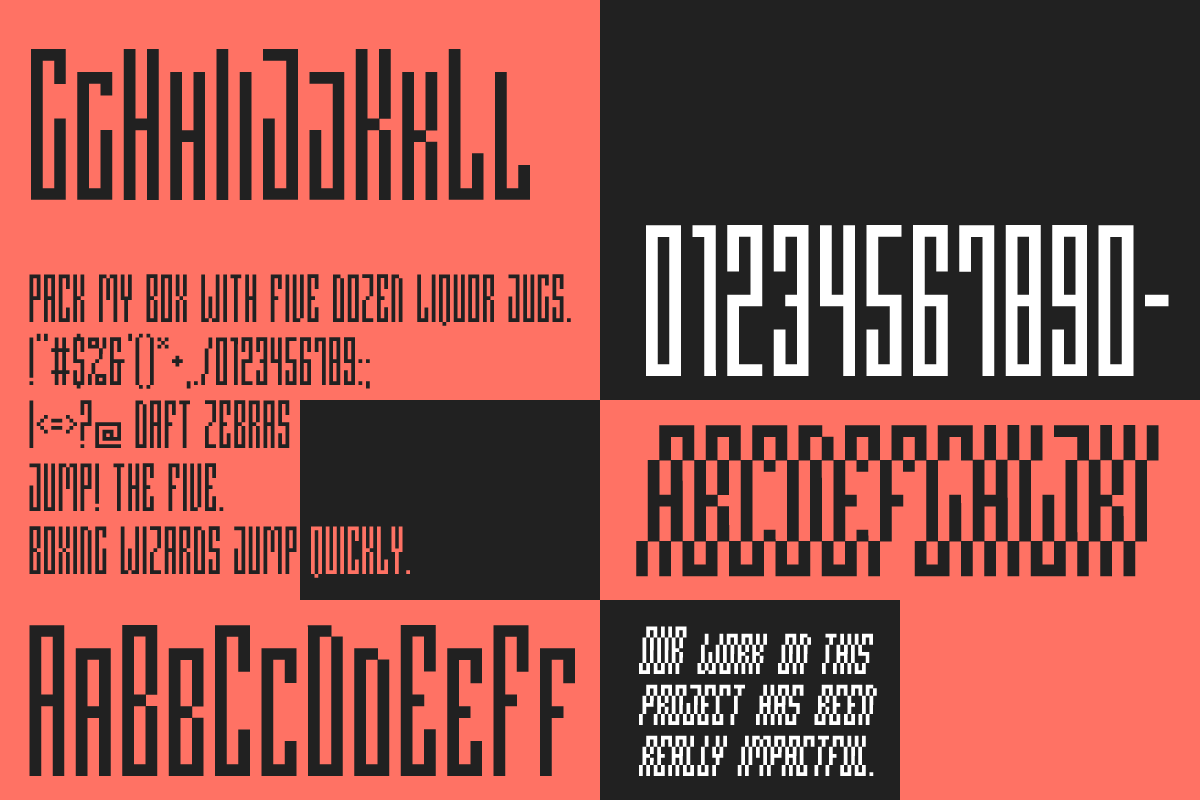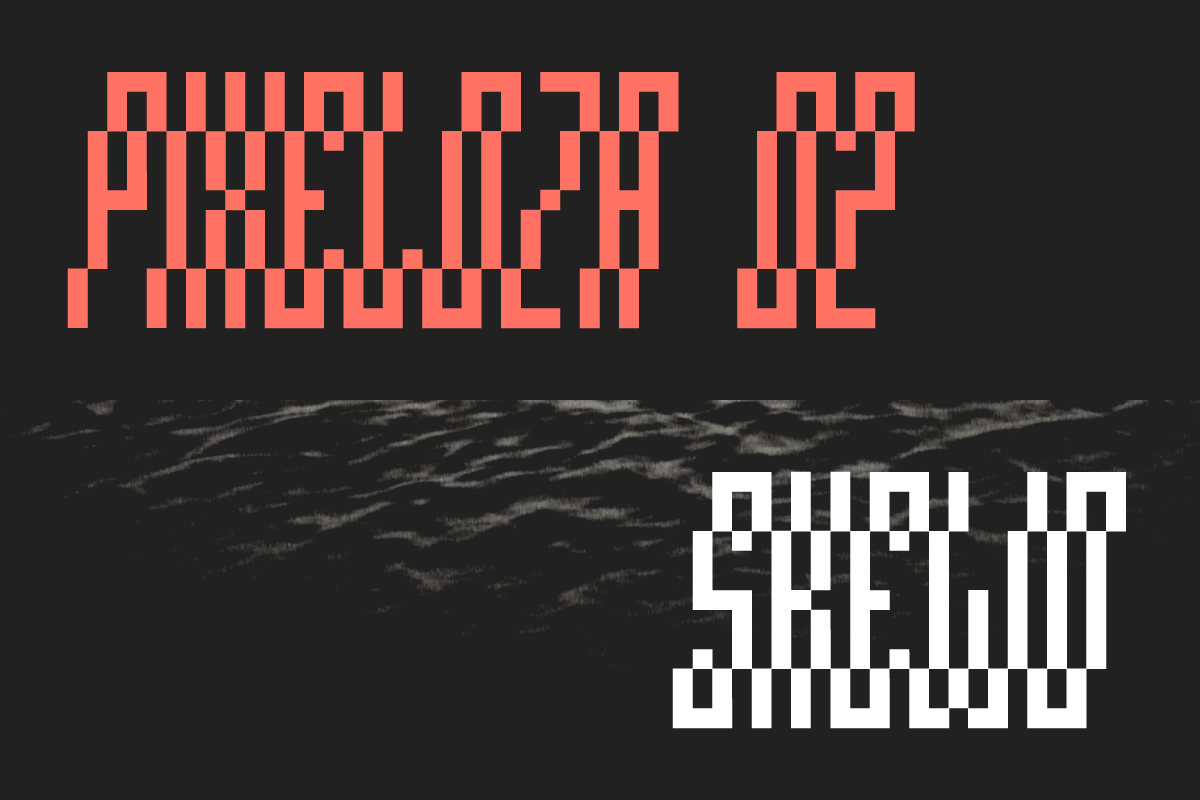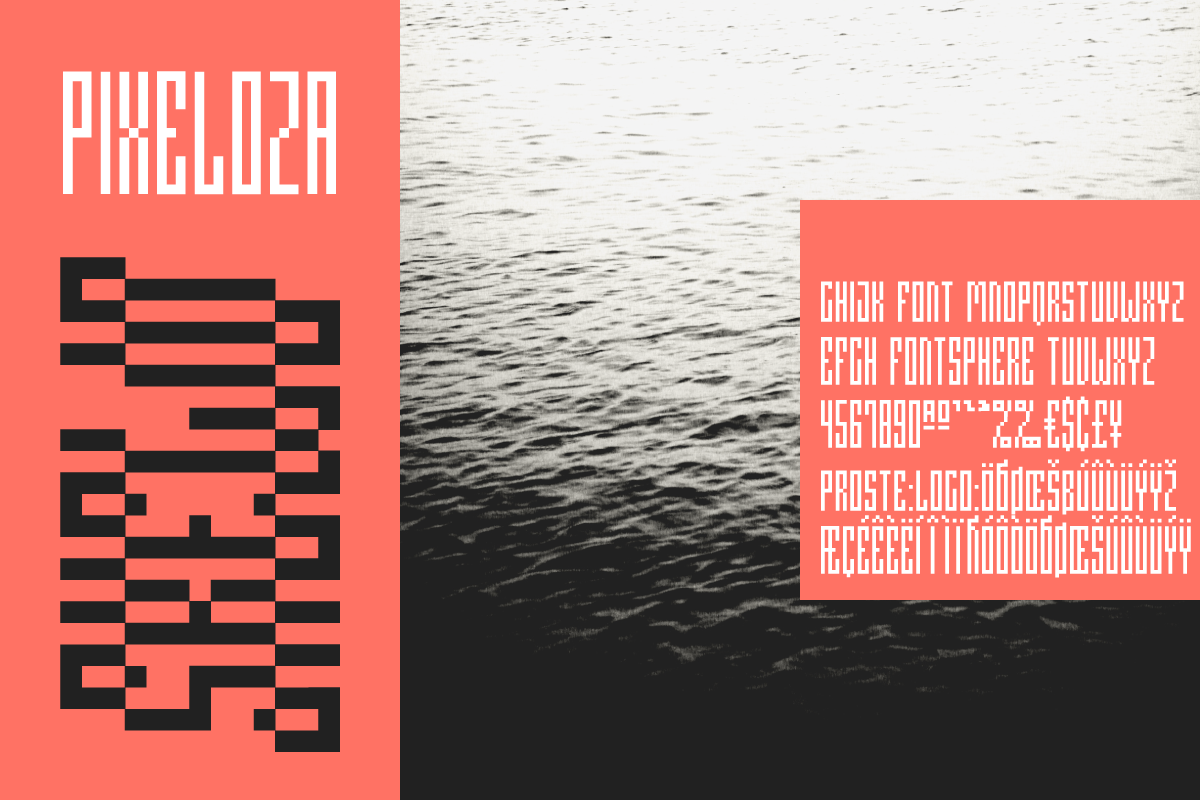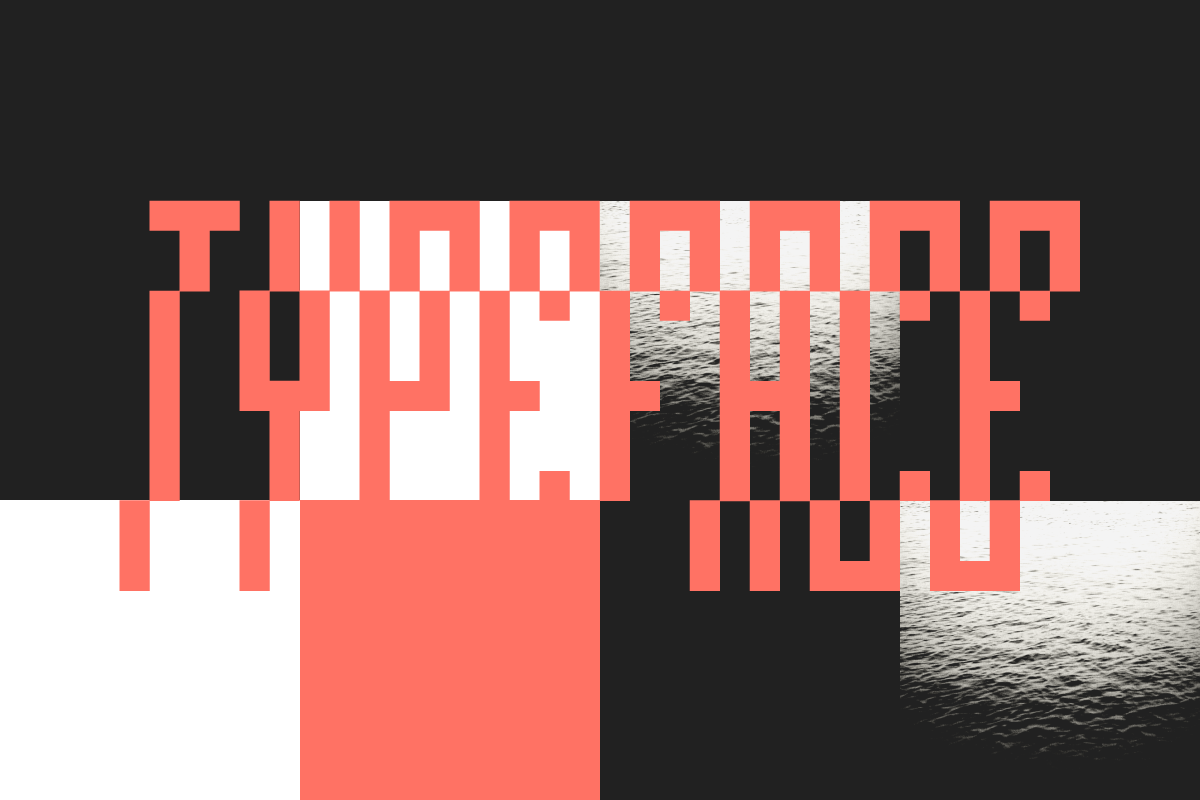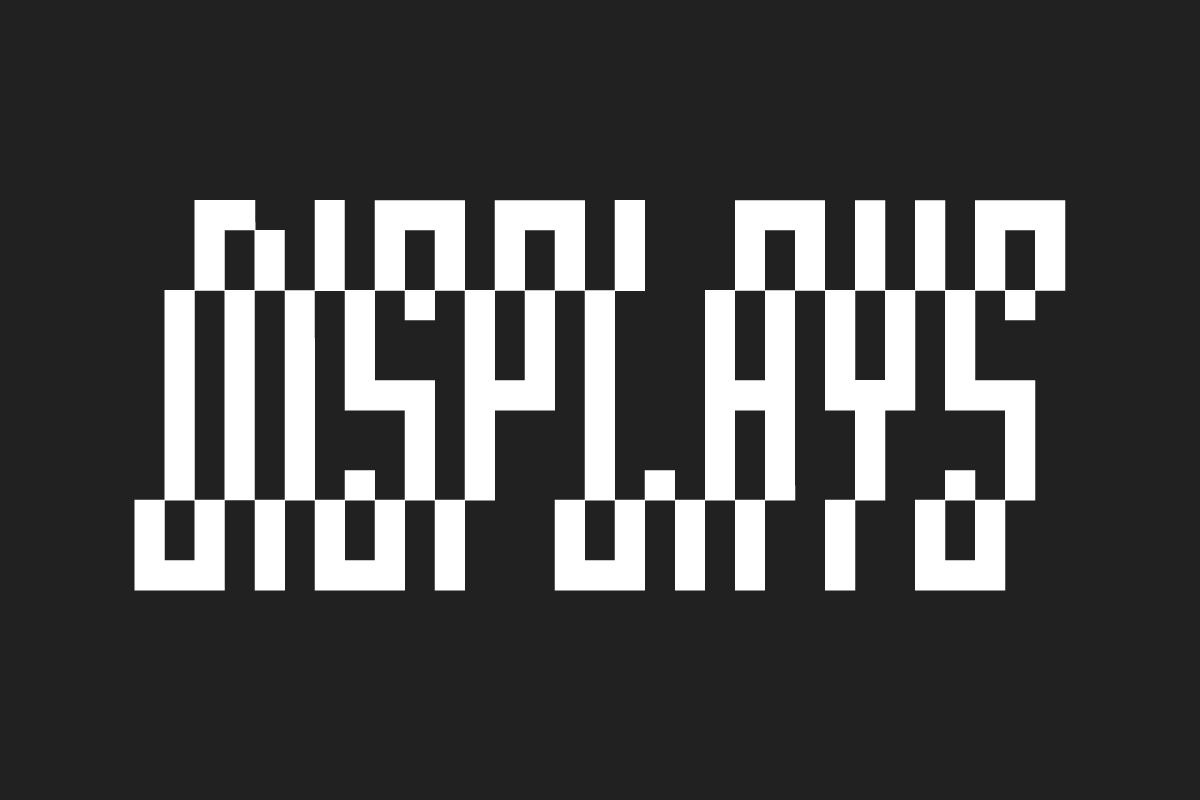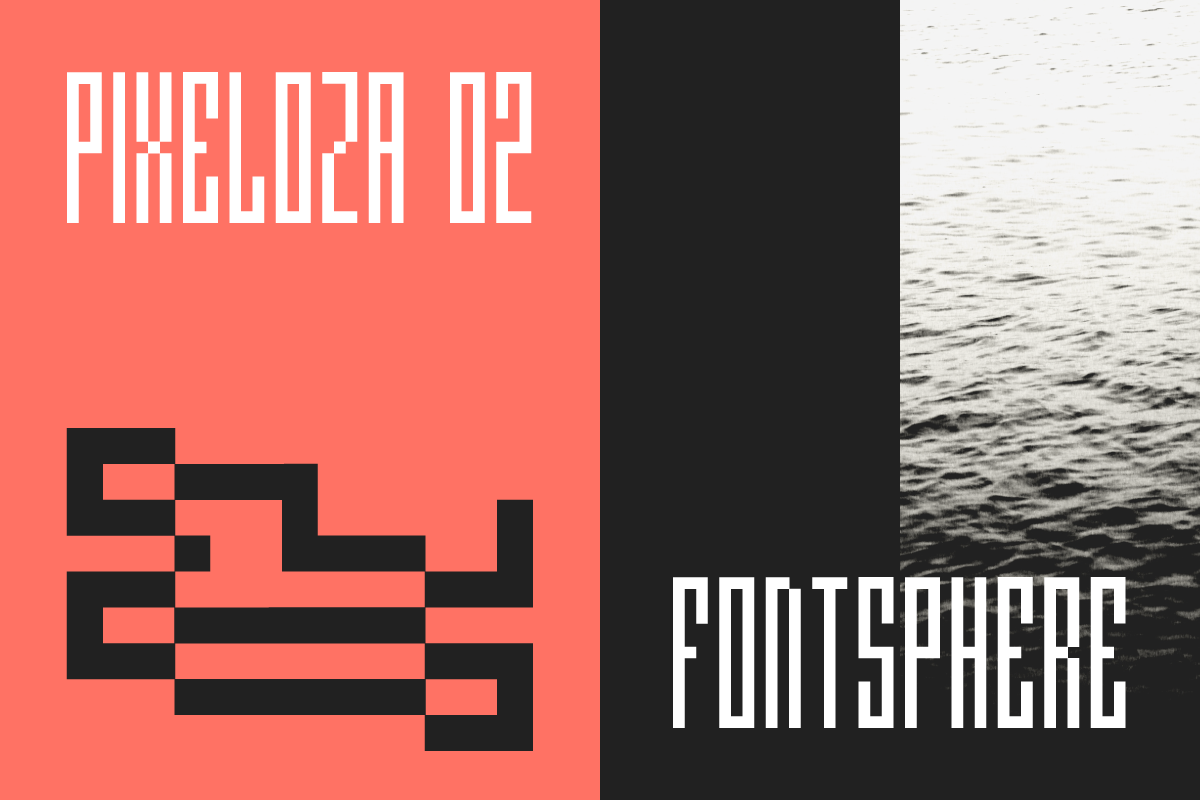
Pixeloza 02 ( FREE Style )
Pixeloza 02 is a pixel-style, grid-based, display typeface. (Two fonts, one for free).
This is another version of Pixeloza type. Compared to Pixeloza 01, it is characterized by a more slender form, the letters are taller and narrower, which makes the font lighter.
The font is characterized by its simplicity, attention to detail, and original form. You can use it in a wide variety of projects. It gives many possibilities for creating graphics.
Pixeloza 02 is available in two options: Pixeloza 02 Regular and Pizeloza 02 Skewo Regular (free).